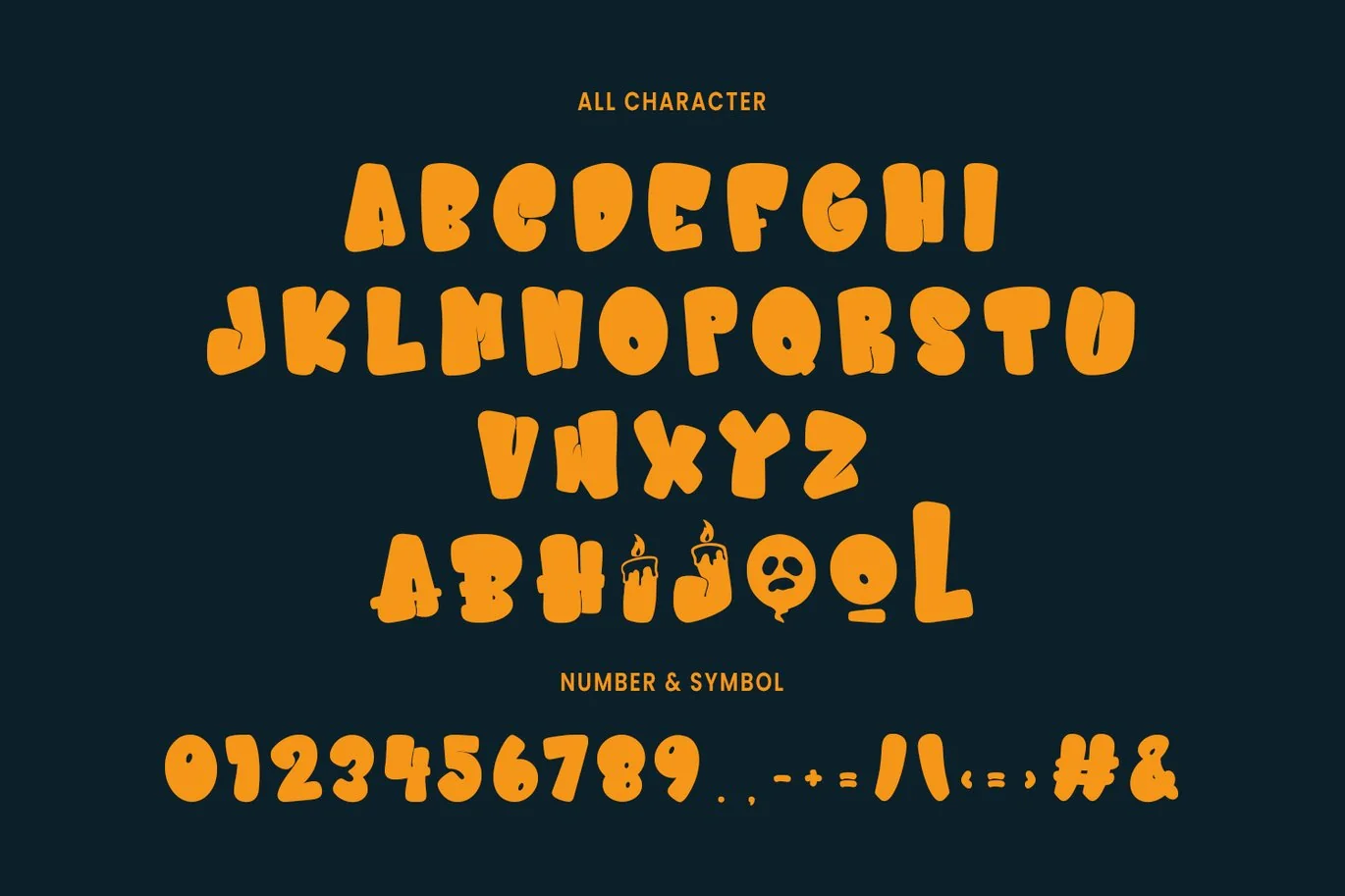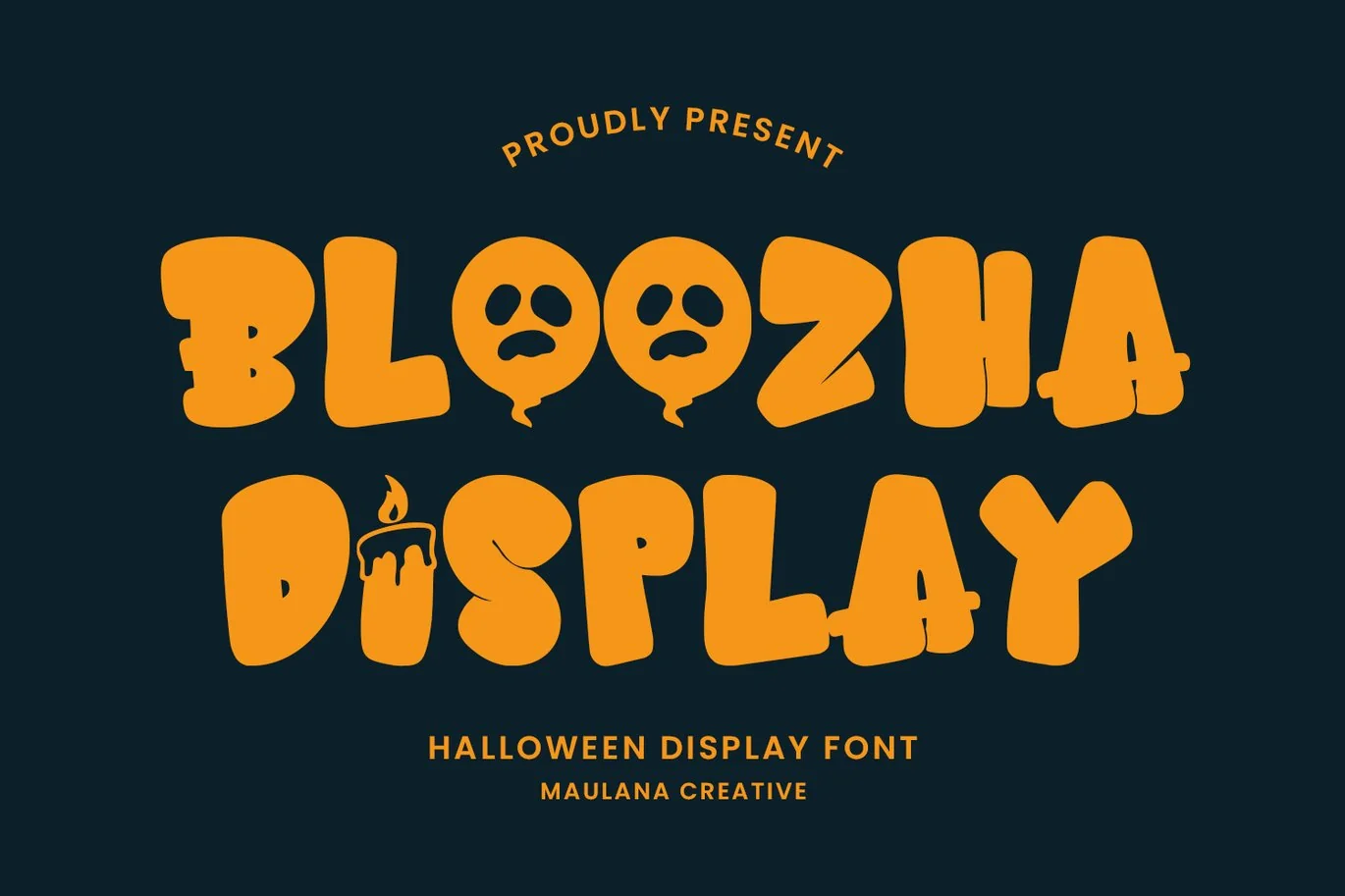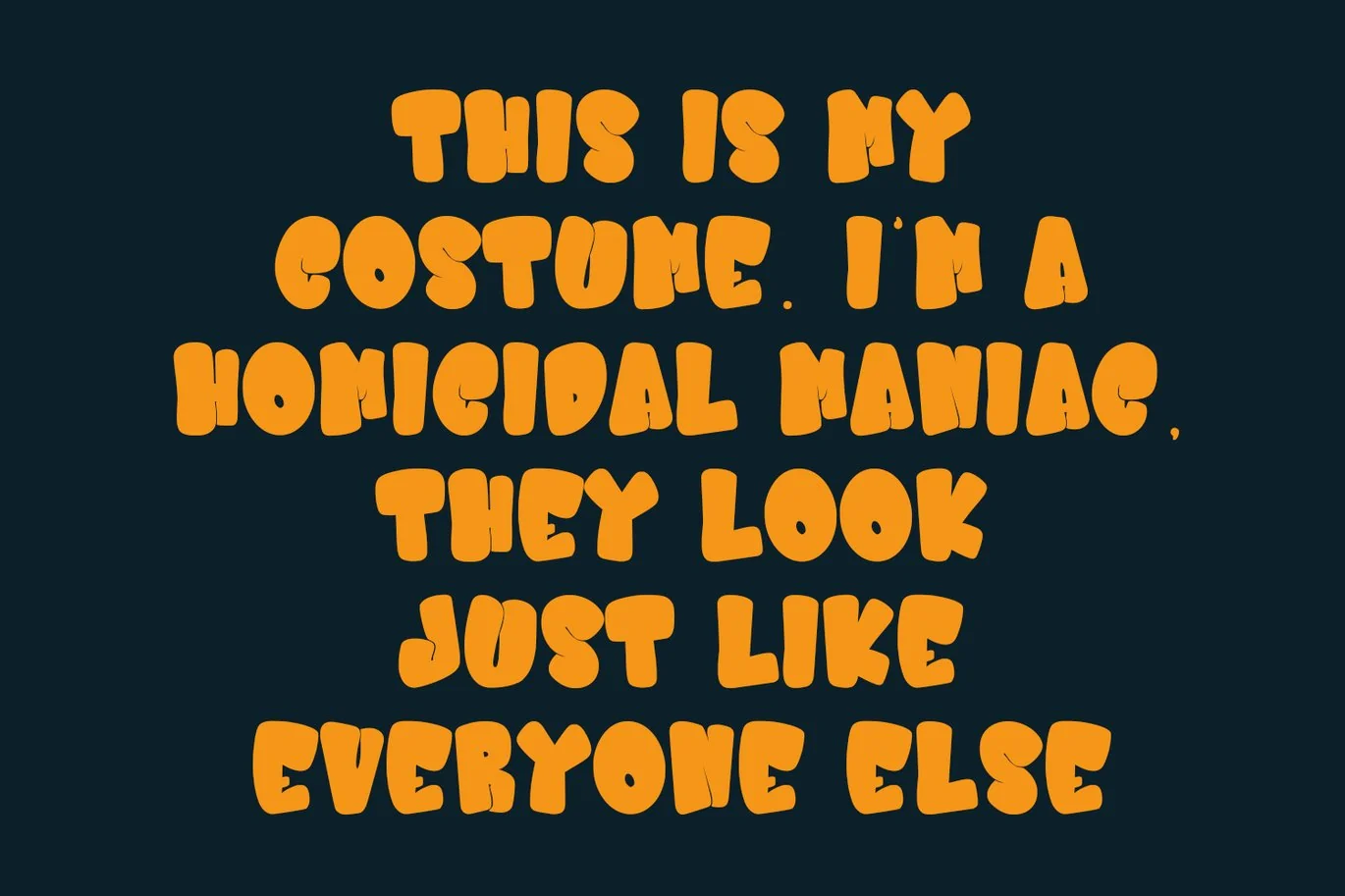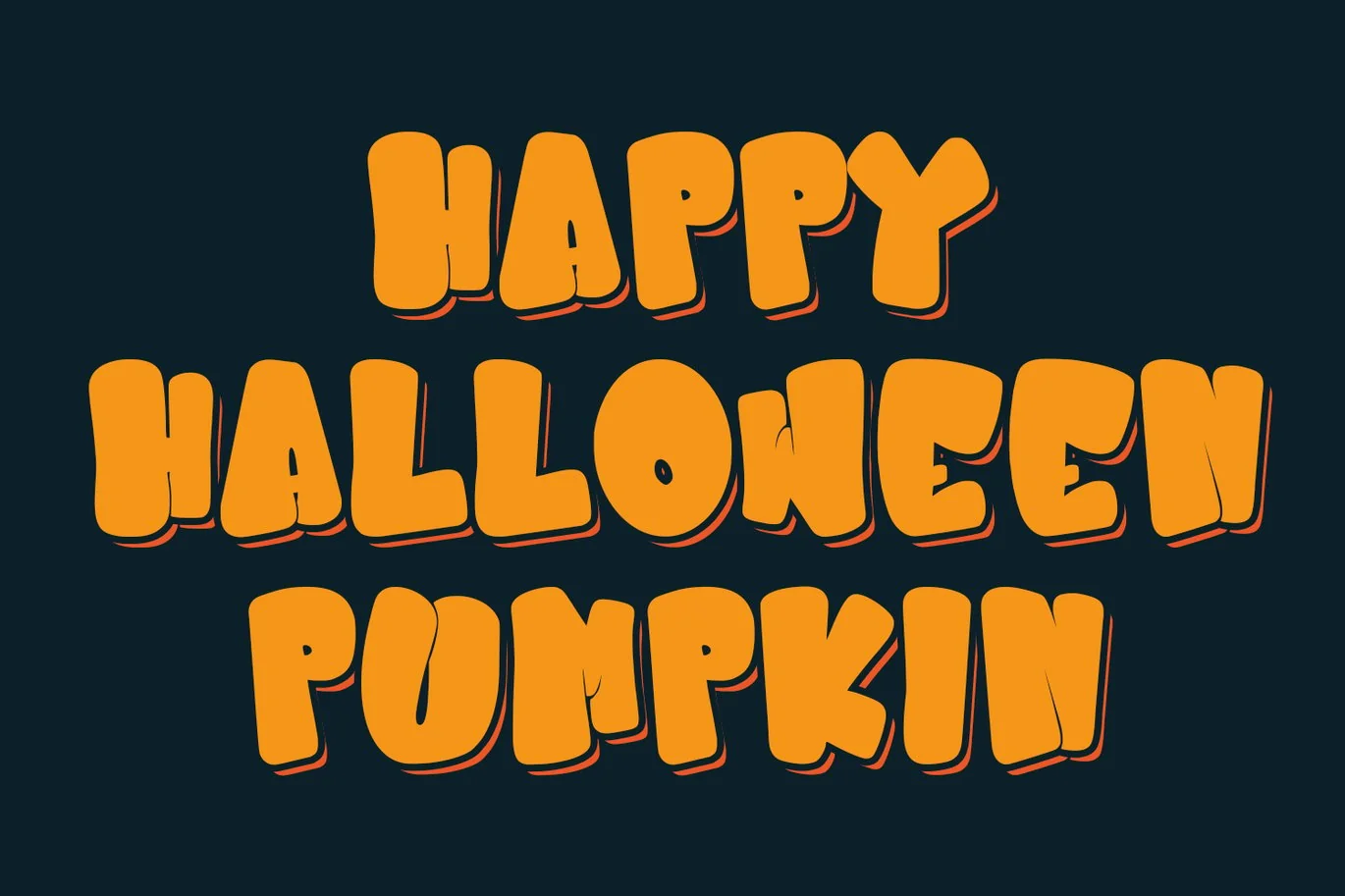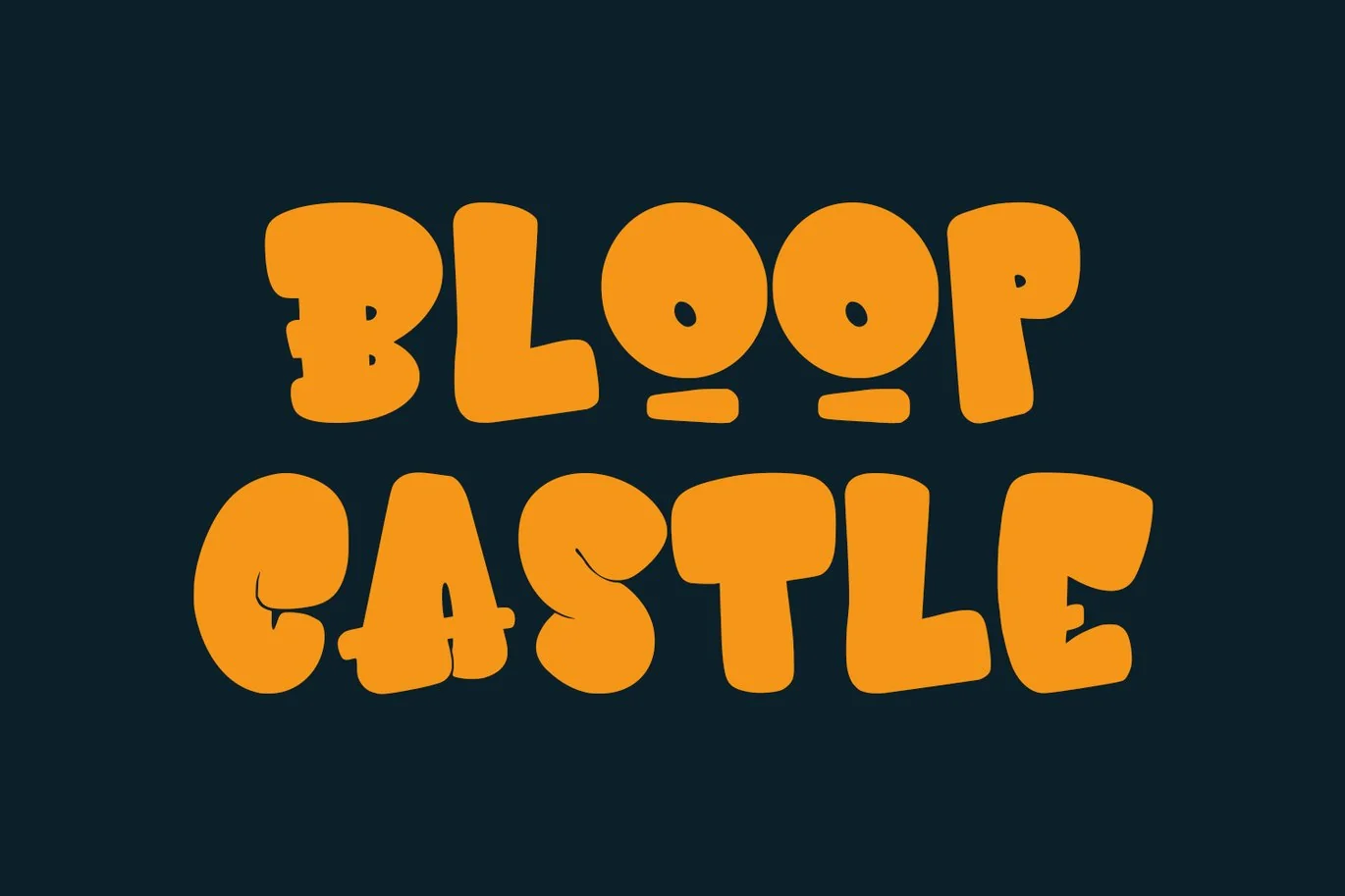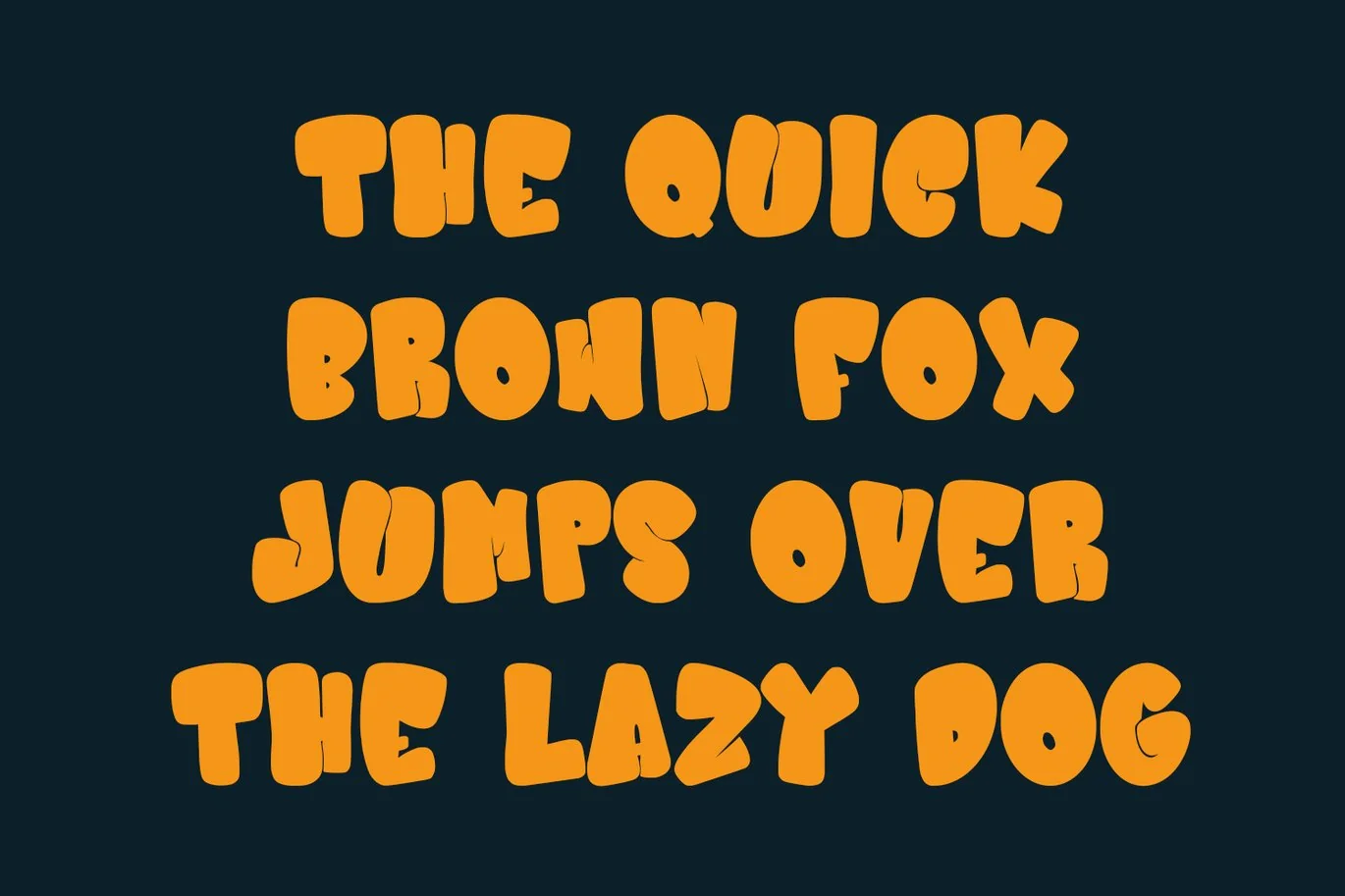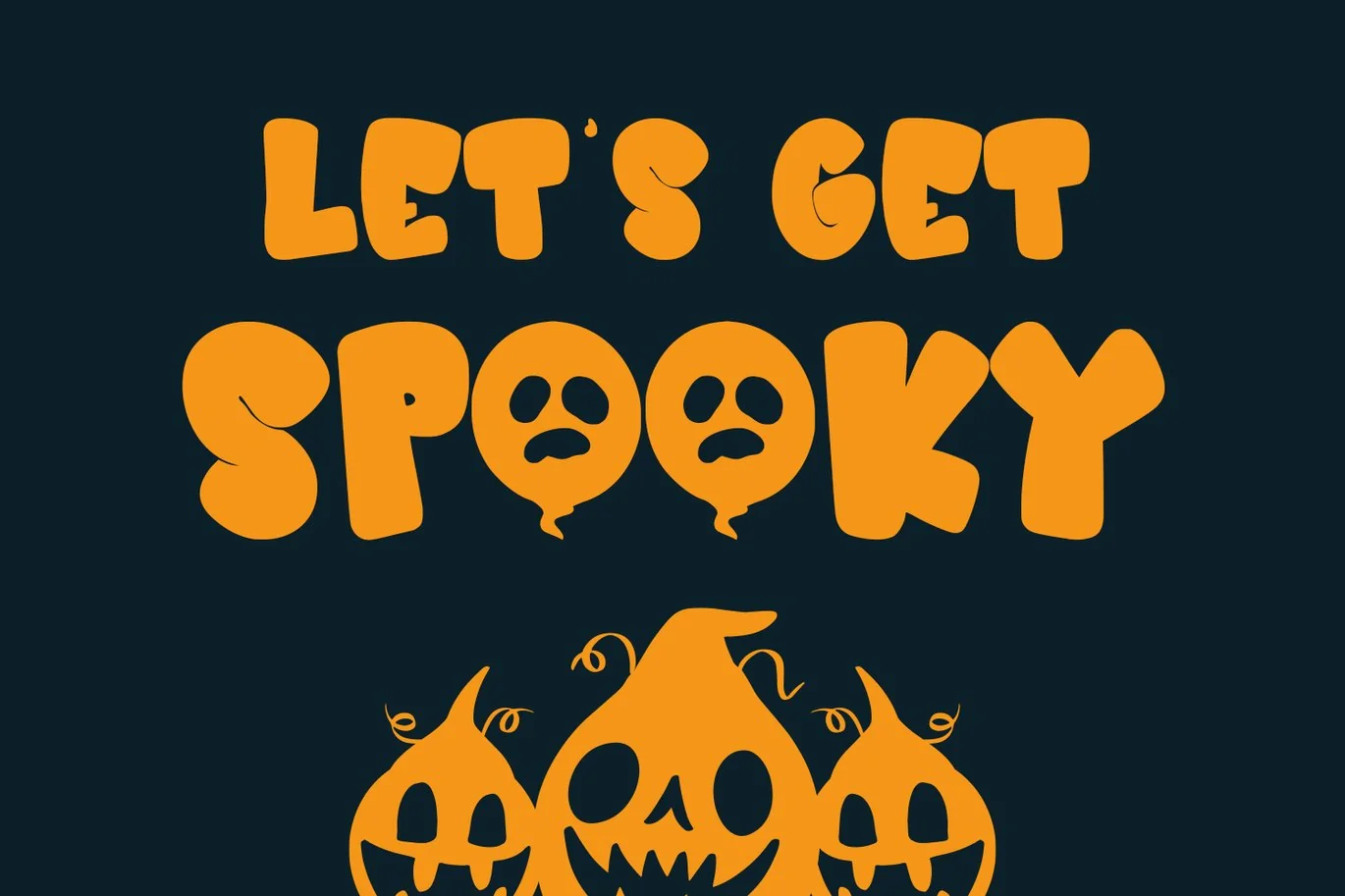
Bloozha Halloween Display Font
Bloozha halloween display font. Heavy stroke, fun character with a bit of ligatures. To give you an extra creative work. Bloozha halloween display font support multilingual more than 100+ language. This font is good for logo design, Social media, Movie Titles, Books Titles, a short text even a long text letter and good for your secondary text font with script or serif. Make a stunning work with Bloozha halloween display font.